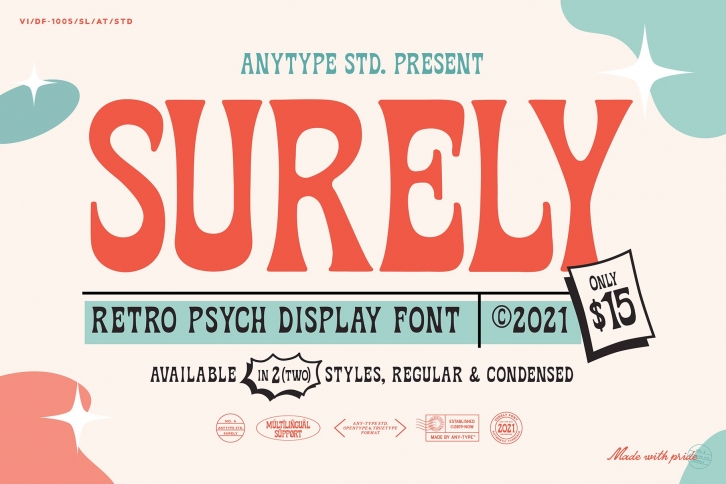
Surely Retro Font is a quirky display serif that spells fun. With its psychedelic look, it would look perfect when paired with a conventional serif/sans serif or script exactly. It can be used for masthead, poster, business identity, badge design, sign system and many more. This font comes with multilingual support and 2 style font inside. Regular and Condensed.